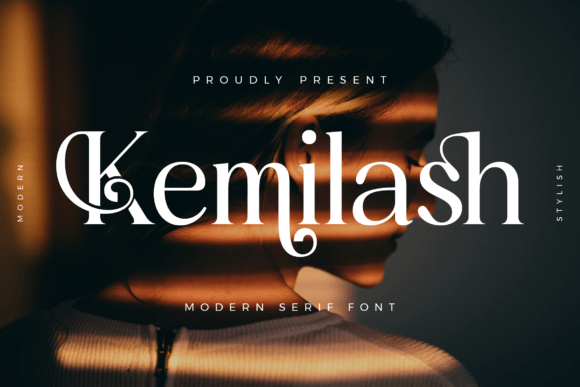
Introducing Kemilash Font, the ultimate choice for those seeking the best fonts for design resumes. Crafted by Storytype Studio, this modern and classic serif typeface boasts a unique style and a contemporary allure that is guaranteed to captivate users.
With its elegant and luxurious appeal, Kemilash Font is an ideal choice for creating stunning logos that exude sophistication and class. Its timeless beauty also makes it perfect for designing book or movie titles that demand attention and leave a lasting impression.
Fashion brands seeking to establish a strong visual identity will find Kemilash Font to be the perfect companion. Its modern look adds a touch of refinement to any brand logo, making it instantly recognizable and memorable. Moreover, the font's versatility extends to magazine layouts, where it effortlessly enhances the overall aesthetic and ensures a visually engaging reading experience.
The charm of Kemilash Font is not limited to print media. It excels in digital spaces as well, making it an excellent choice for websites, blogs, and social media graphics. The font's graceful curves and clean lines lend a contemporary yet timeless feel to online content, ensuring that your brand stands out in the cluttered digital landscape.
Lettering enthusiasts and quote aficionados will appreciate the versatility of Kemilash Font. Its elegant and expressive nature allows for the creation of captivating letterforms that evoke emotion and deliver your message with impact. Whether you're designing motivational posters or personalized stationery, this font will elevate your creations to new heights.